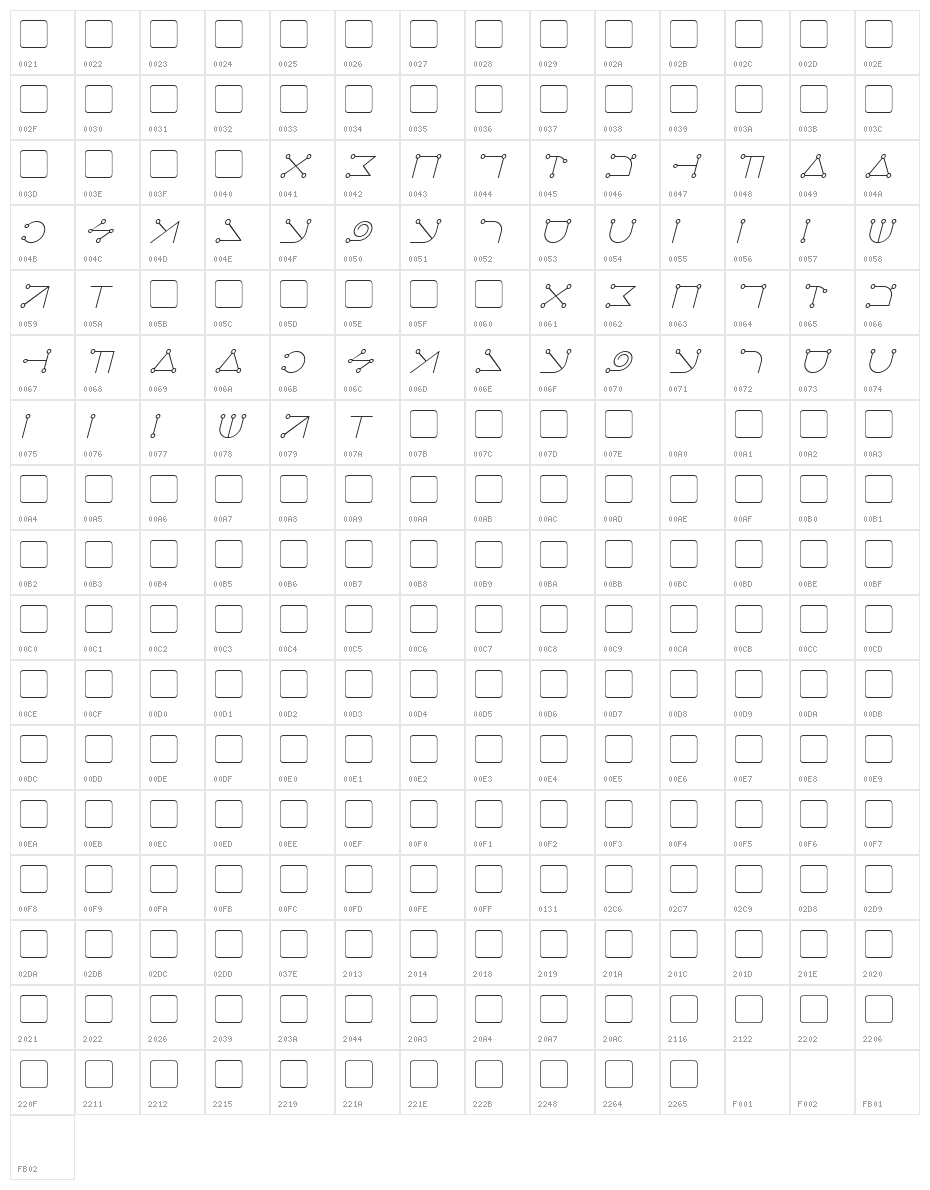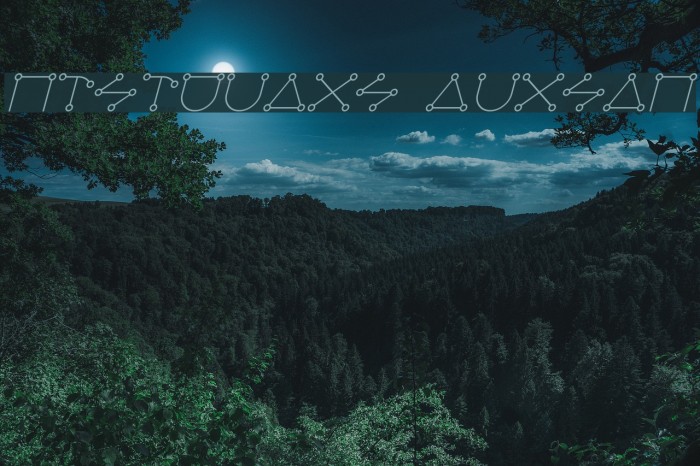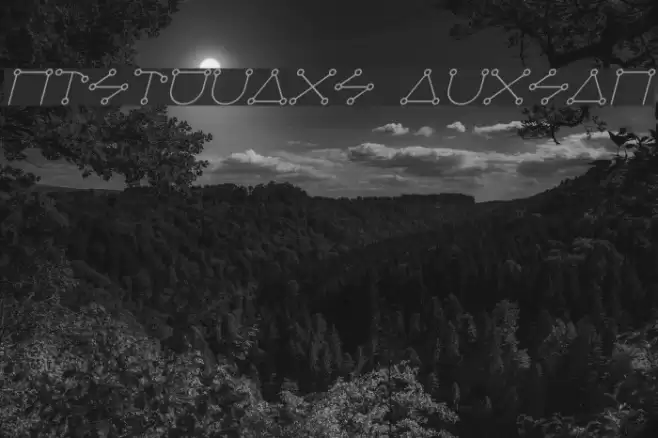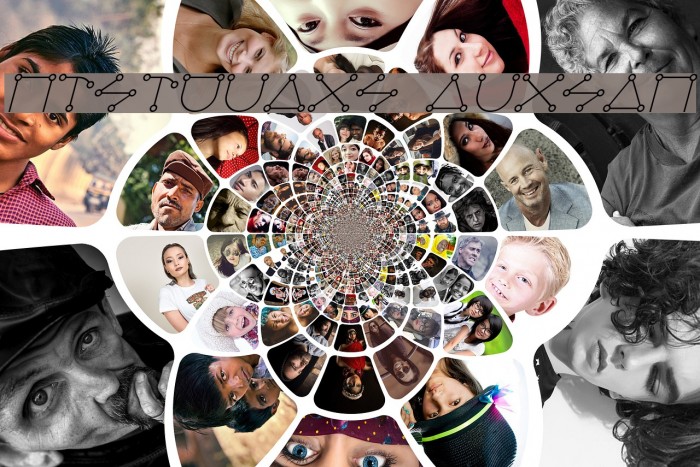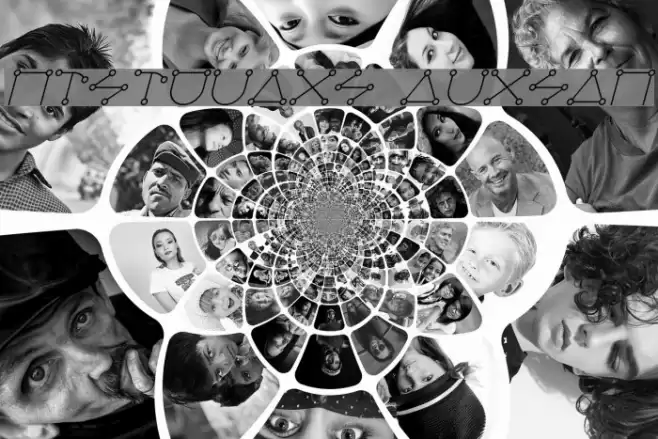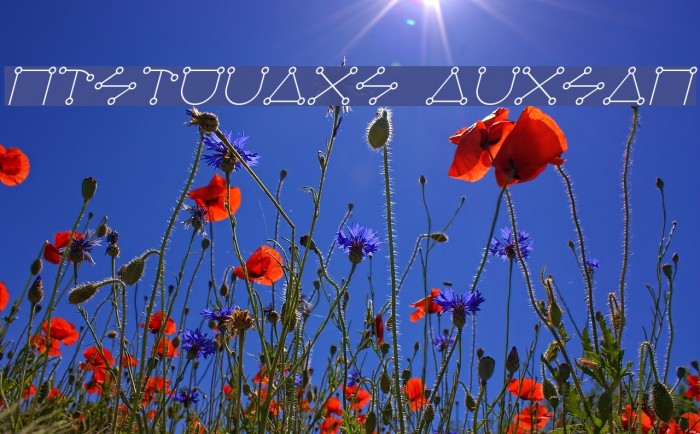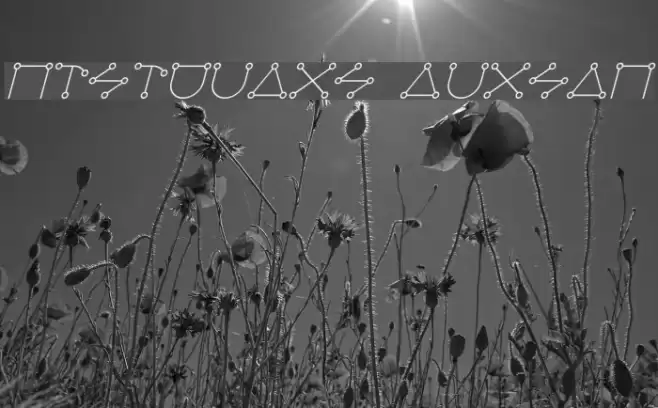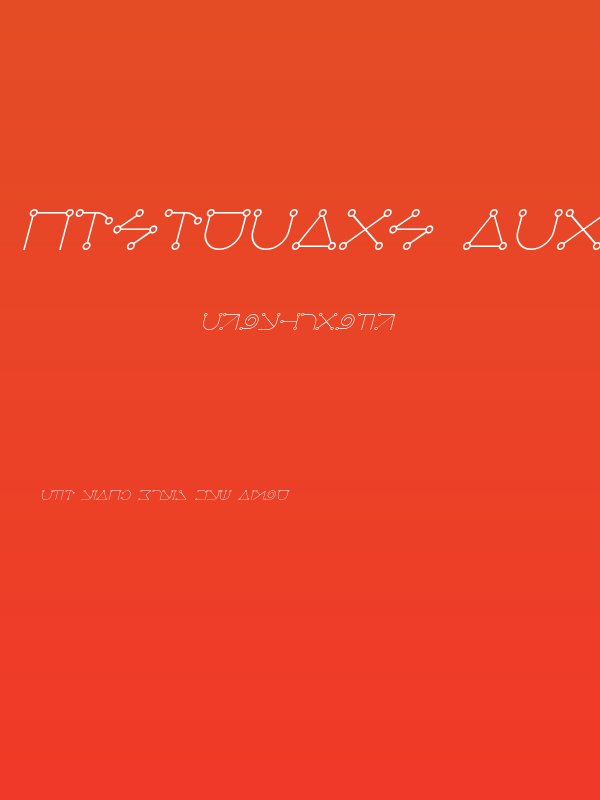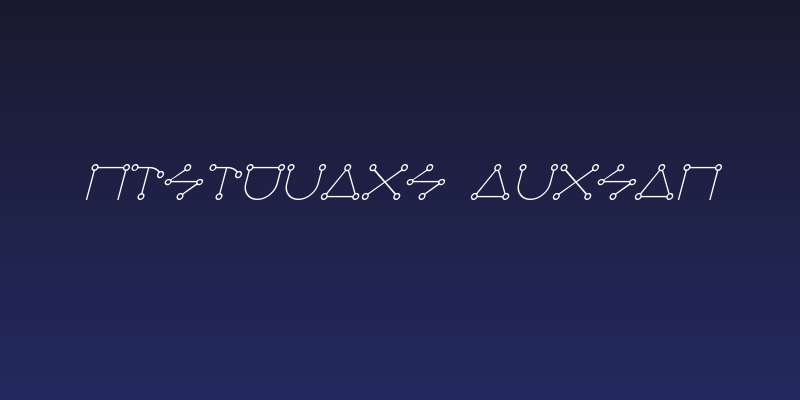
Celestial Italic Font
Celestial Italic Description
This font features a futuristic and celestial design, characterized by its unique blend of geometric shapes and flowing lines. Each character is crafted with a series of dots and lines that create a constellation-like appearance, giving it an ethereal and otherworldly feel. The letters are connected with thin lines, and some characters incorporate spiral or looped elements, enhancing the cosmic theme. The overall design is airy and open, with a sense of movement and fluidity. This font is ideal for projects that require a modern and innovative touch, capturing the imagination with its celestial aesthetic.
| Overall Style | Futuristic, Celestial |
| Proposed Projects | Ideal for sci-fi book covers, space-themed event posters, futuristic branding, and digital art projects. |